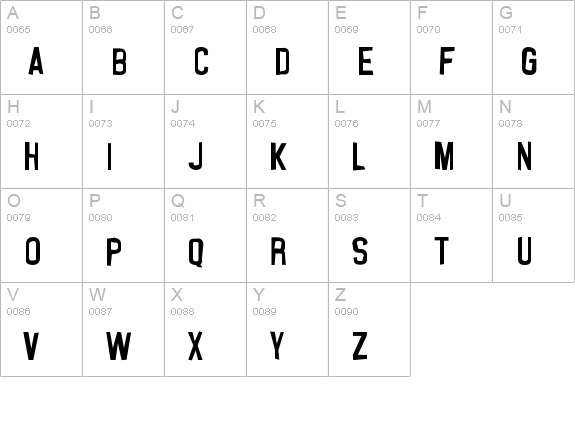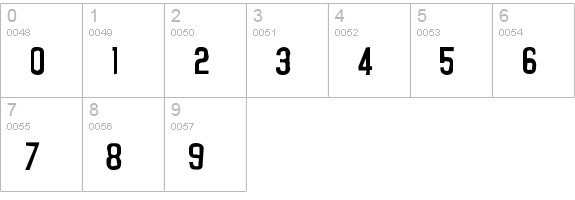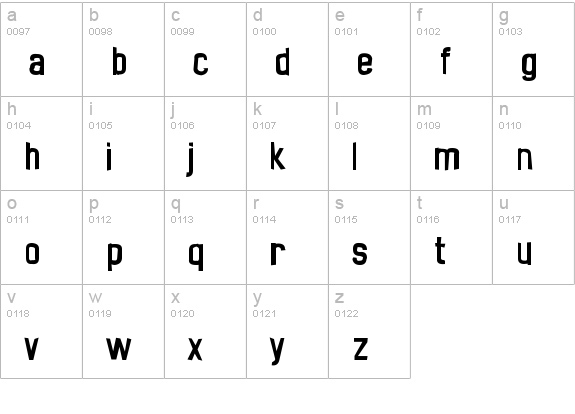
Noasarck Sporadico Font Details
Noasarck Sporadico font is a stunning display typeface that exudes modern elegance and sophistication. With its unique combination of sharp lines and flowing curves, this font is perfect for adding a touch of contemporary flair to any design project. The sleek and stylish letterforms of Noasarck Sporadico make it ideal for branding, headlines, posters, and more. What makes Noasarck Sporadico even more appealing is that it is available for free download at FontsMarket.com. This means that you can easily access this high-quality font without having to spend a penny. Whether you're a professional designer looking to elevate your work or a hobbyist seeking to add a touch of creativity to your projects, Noasarck Sporadico is an excellent choice. The versatility of Noasarck Sporadico font allows it to be used in a variety of design contexts, from digital graphics to printed materials. Its clean and minimalist aesthetic ensures that your message will always come through loud and clear, while its subtle details add a touch of sophistication and refinement. Overall, Noasarck Sporadico font is a fantastic addition to any designer's toolkit. Its modern aesthetic, versatility, and availability for free download make it a must-have for anyone looking to make a statement with their typography.